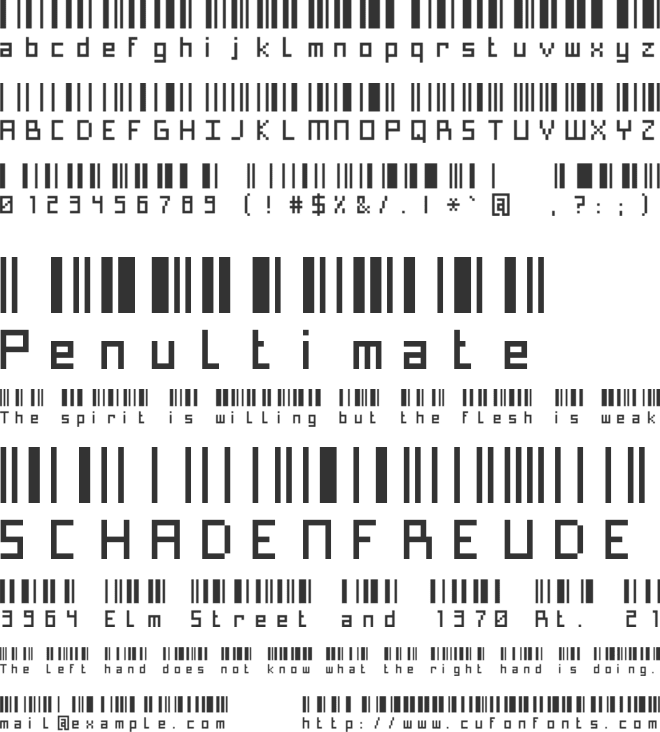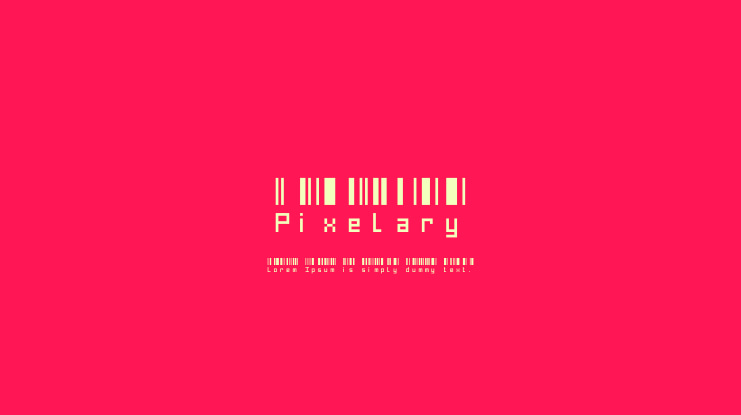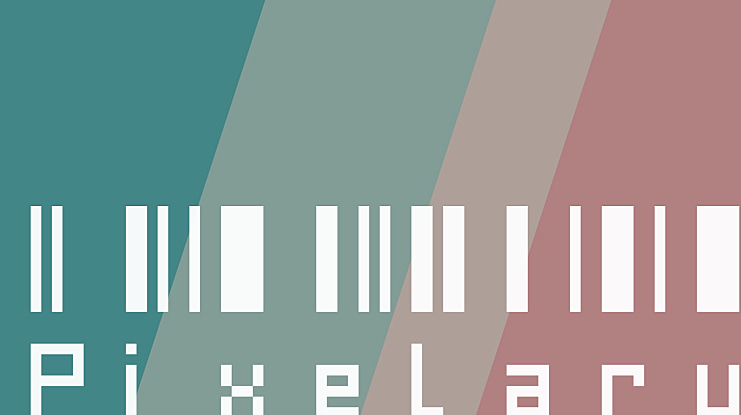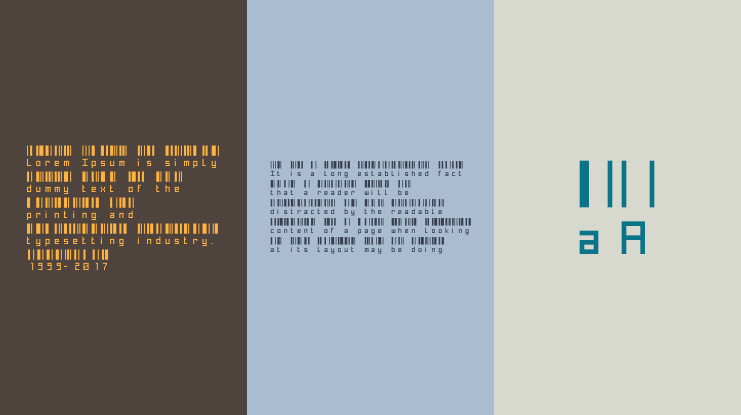
Pixelary Font
Patch
Pixelary is BASED on Paskowy. I really liked the stripe accents above the lettering, but they didn't actually represent anything.
I decided to change the arbitrary stripes with the actual binary encoding of each character.
I also changed some of the letter designs to work better at small scales.